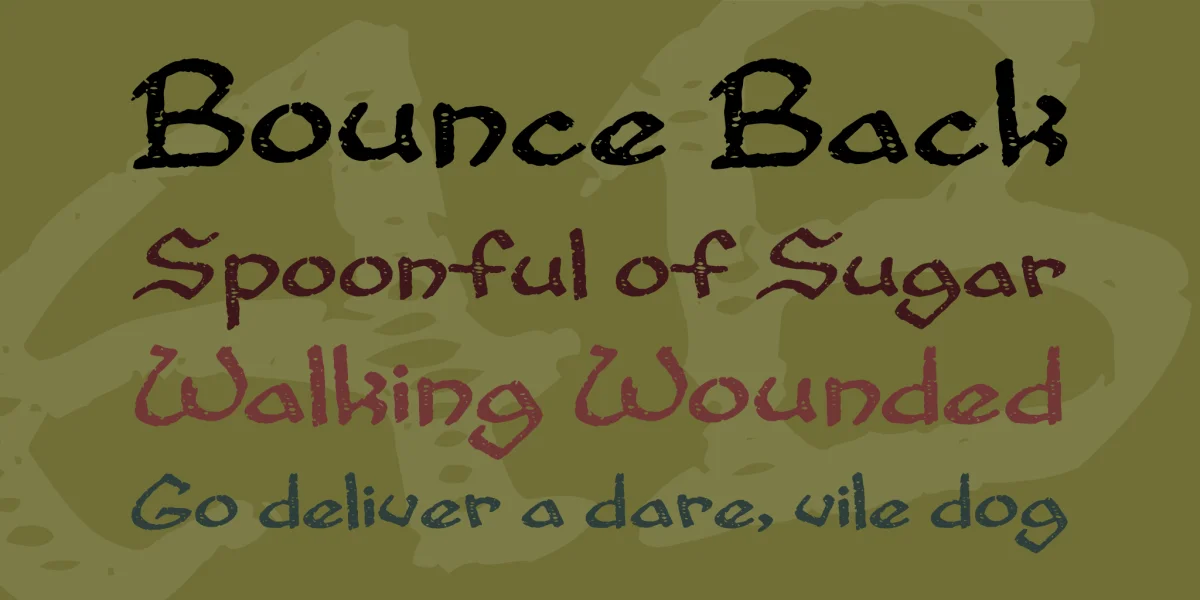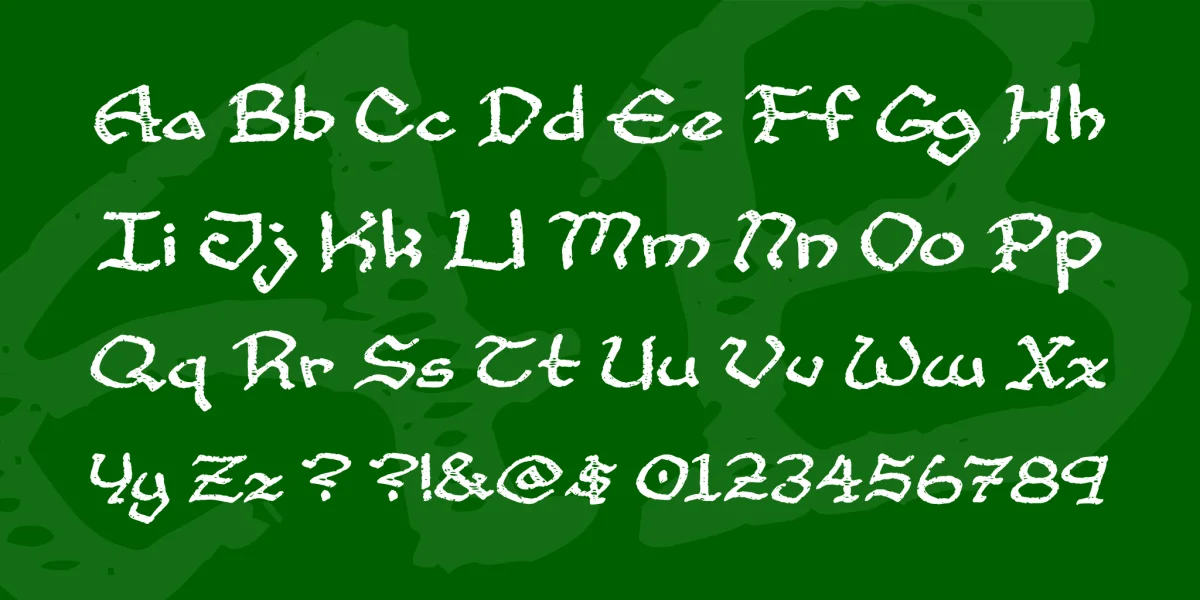
I named Cup and Talon for the oldest tavern in my fantasy campaign ... The same one I've been mentally bumming around in since I was sixteen (as of this year, I've been mentally bumming around in fantasy taverns for more than half my life, and I guess that's worth a font name if anything is).
The font began as just a doodling exercise. I'm really, really terrible at actual calligraphy, so I was trying out a new wedge marker and attempting to make a reasonable, light handed calligraphic script. I failed at that, so I just let the sample languish in one of my writing notebooks. Recently, while doing some housecleaning, I ran across it again and decided to play around with it in Photoshop, experimenting with a new kind of stressing I wanted to try, with a kind of textured series of horizontal lines "showing through" where the image is weakest. The combination of good stressing effects, a little vertical rescaling, and my mediocre calligraphy made for a font I'm suddenly very fond of - a sincere if inexpert fantasy font, just about right for the signage and paper menus in my oldest fantasy tavern (there were a few shameful years in my life where I cared if it was "historical" for an RPG tavern to have paper menus, but I got over that with a vengeance and now most of them even offer cheap hot wings on a Tuesday night). Cup and Talon is a full-keyboard font with assorted extras tucked in, including curly quotes and full dashes.